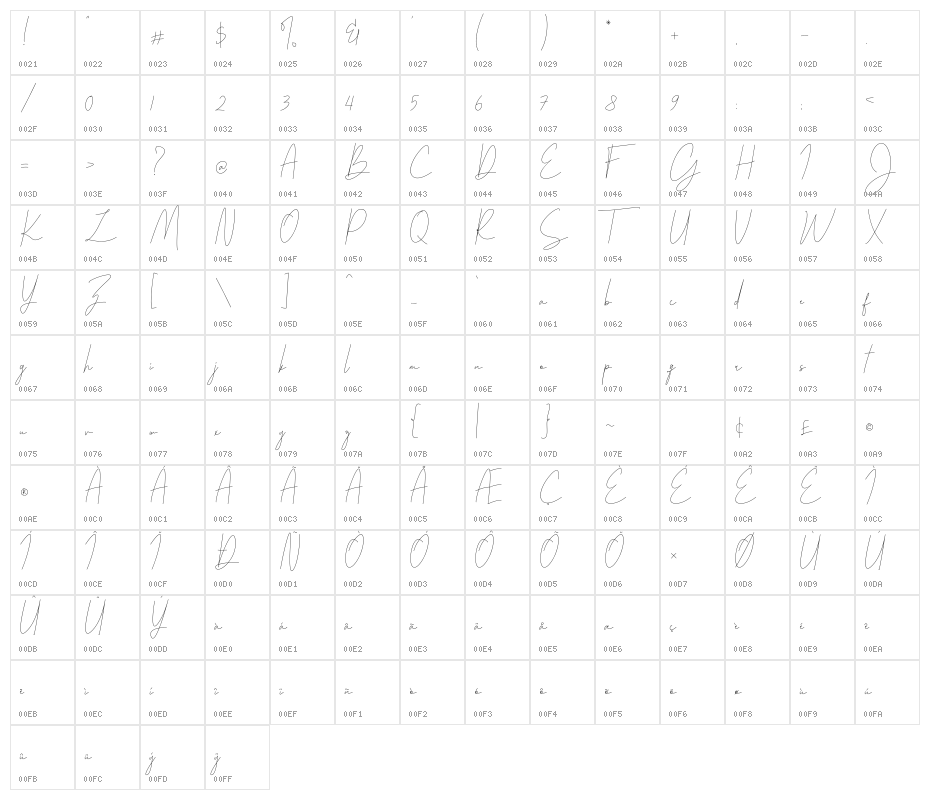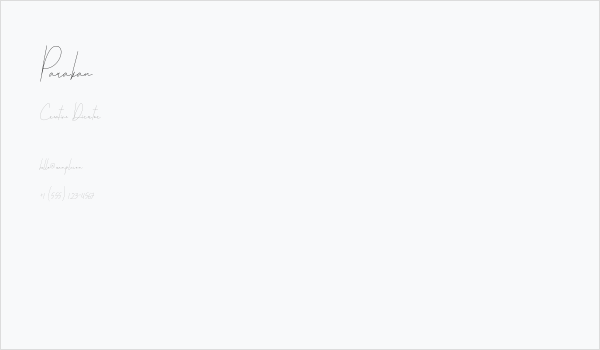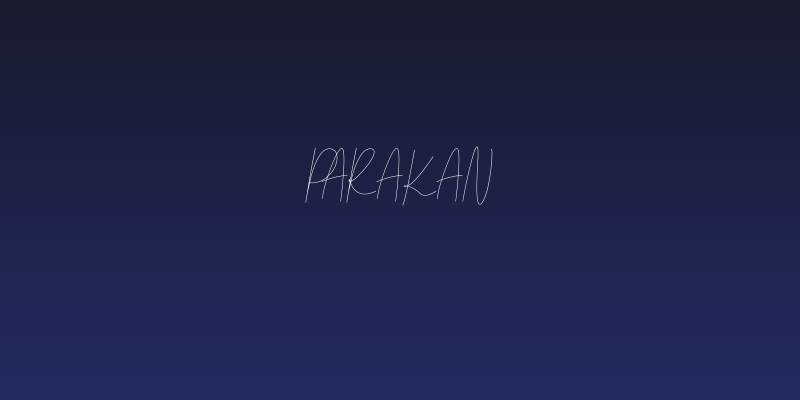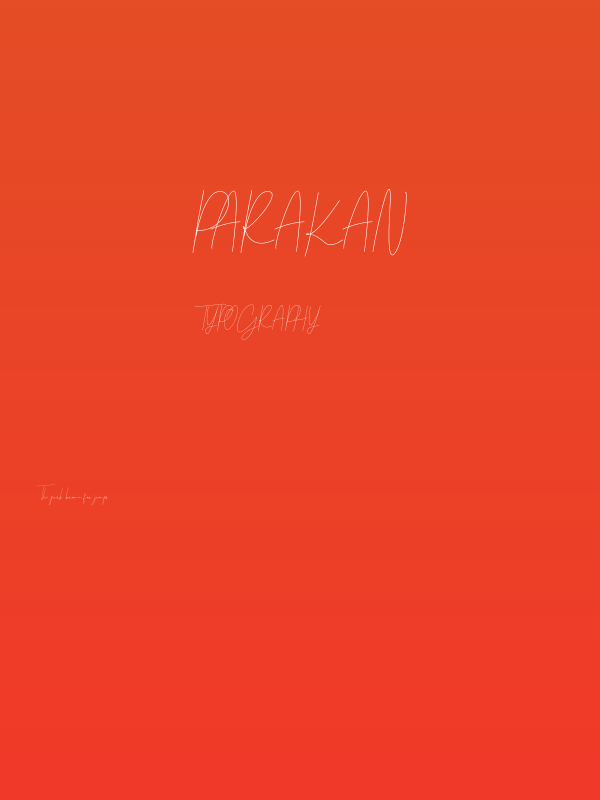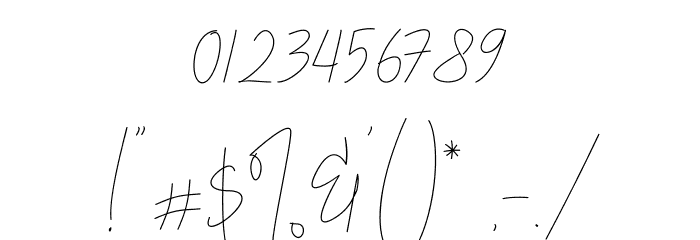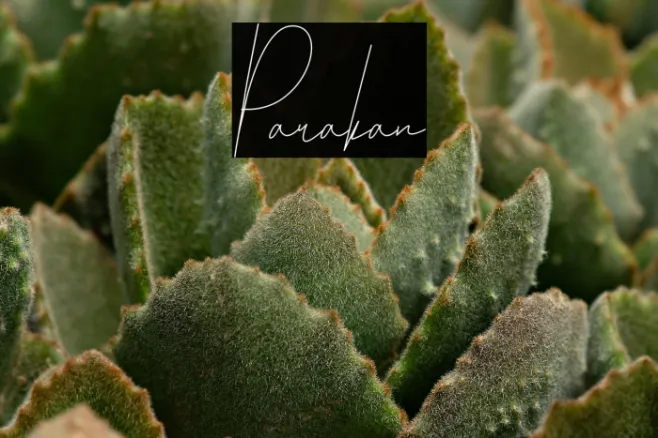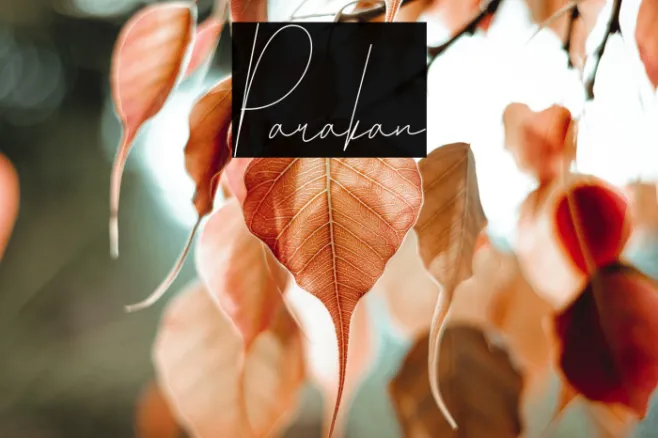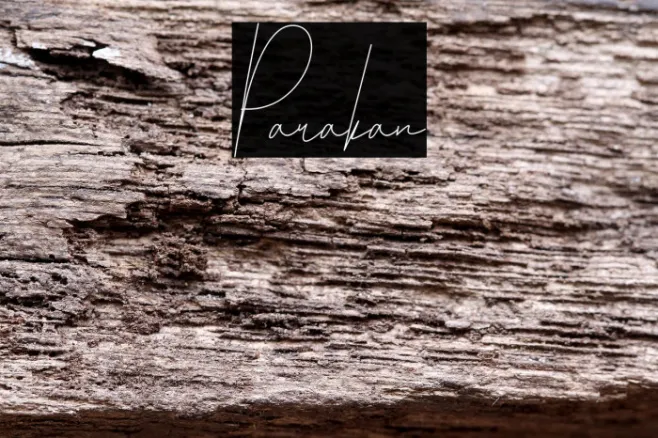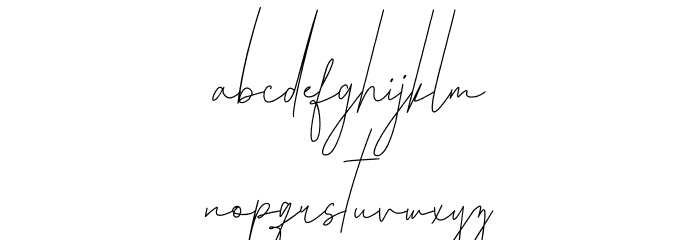
Parakan Font
Parakan Description
This font features a delicate and elegant handwritten style, characterized by thin, flowing strokes that give it a graceful and airy appearance. The uppercase letters are tall and slightly slanted, while the lowercase letters maintain a consistent flow with a slight cursive touch. The numbers and special characters are designed to complement the overall aesthetic, maintaining the same thin and elegant line work. This font exudes a sense of sophistication and modernity, making it suitable for a variety of creative applications.
| Proposed Projects | Ideal for wedding invitations, personal branding, elegant logos, and upscale packaging design. |